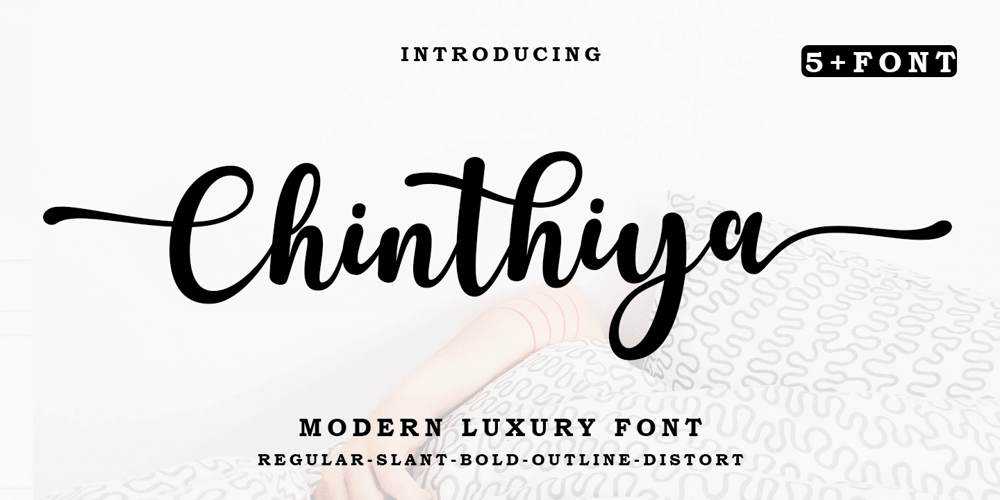
Chinthiya Script Font Family was designed by Zaki Muhammad and published by madjack.font. Chinthiya Script contains 5 styles and family package options. Chinthiya Script is an elegant and flowing handwritten font. This is a PUA code which means you can access all the glyphs and sweeps easily! It features varied baselines, smooth lines, gorgeous glyphs and stunning alternatives.Fonts equipped with upper and lower case letters, numbers, punctuation, support for languages, swashes and ligatures.Chinthiya Script It maintains a classy calligraphic influence while feeling contemporary and fresh. Fall in love with this font and take your project to the highest level!Thank you for visiting our store, hope you like it 🙂